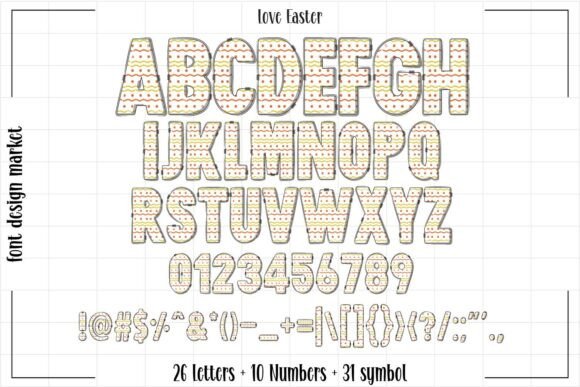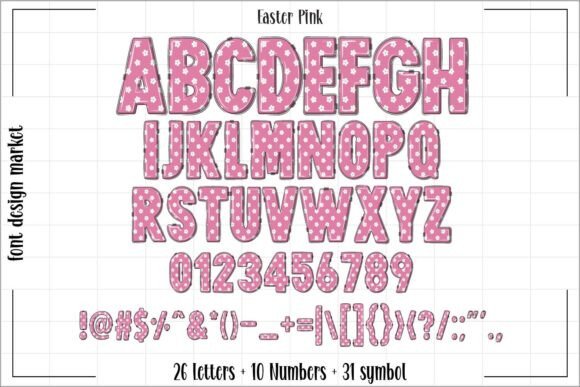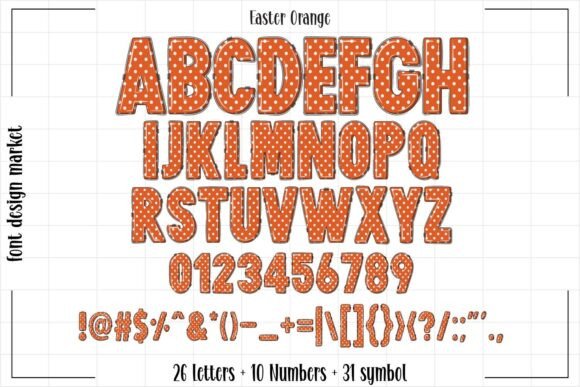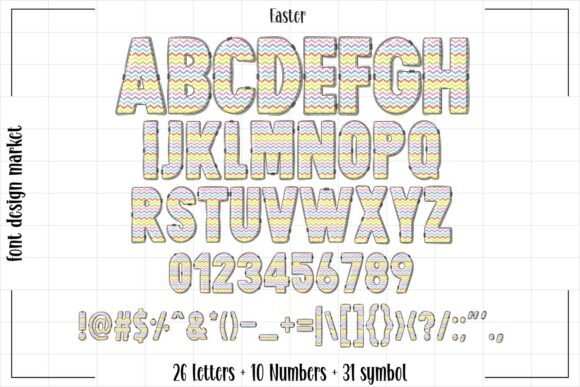
Easter Font: Add a Pop of Color to Your Designs
Easter is just around the corner, and what better way to celebrate than with a bold, fun, and attractive font that energizes your designs with vibrant hues? Look no further than the Easter Font, ideal for headlines, logos, and social media graphics. This unique and fun colored font is perfect for designers and crafters looking to create a bold statement in their work.
What is Easter Font?
The Easter Font is a one-of-a-kind, colored font that adds a touch of excitement to any design. With a range of vibrant colors to choose from, you can create a bold and eye-catching statement that sets your work apart. Whether you’re designing for Easter, spring, or just want to add some fun to your projects, this font is the perfect choice.
Key Features of Easter Font
- Bold and Fun: The Easter Font is designed to make a statement with its bold and fun style.
- Vibrant Colors: Choose from a range of vibrant colors to create a unique and eye-catching design.
- Ideal for Headlines and Logos: The Easter Font is perfect for headlines, logos, and social media graphics.
The Easter Font is perfect for designers and crafters looking to add a touch of fun and excitement to their work. With its bold and vibrant style, this font is ideal for:
- Easter and Spring Projects: Create eye-catching designs for Easter and spring-themed projects.
- Social Media Graphics: Use the Easter Font to create engaging social media graphics that stand out.
- Logos and Branding: Add a pop of color to your logos and branding with the Easter Font.
In conclusion, the Easter Font is a unique and fun colored font that adds a touch of excitement to any design. With its bold and vibrant style, this font is perfect for designers and crafters looking to create a bold statement in their work. Whether you’re designing for Easter, spring, or just want to add some fun to your projects, the Easter Font is the perfect choice.